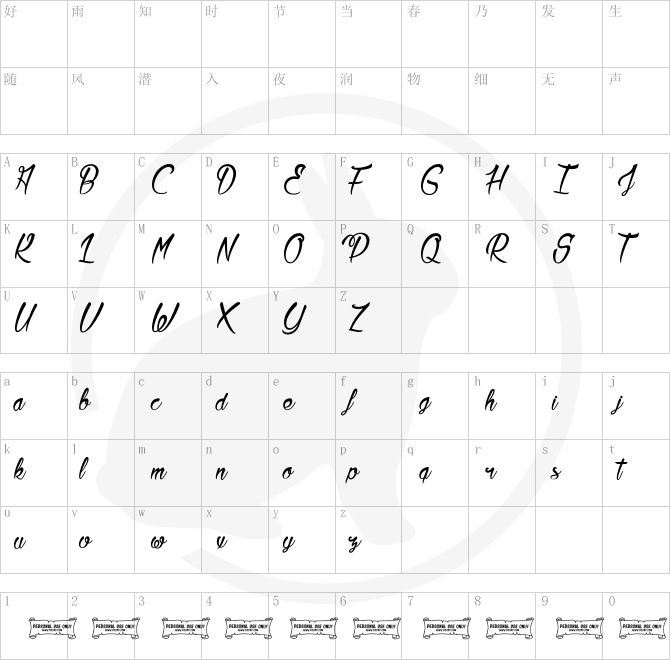
- Font Name:La Citadelle des Papillons
La-Citadelle-des-Papillons.ttf is a very beautiful artistic font, La-Citadelle-des-Papillons.ttf is widely used in the design and printing of various books and pictures,La-Citadelle-des-Papillons.ttf has a strong visual impact,La-Citadelle-des-Papillons.ttf is a commonly used font in newspapers, magazines and books, and is used in posters, e-commerce Poster design, store design, logo design, font design and other fields.La-Citadelle-des-Papillons.